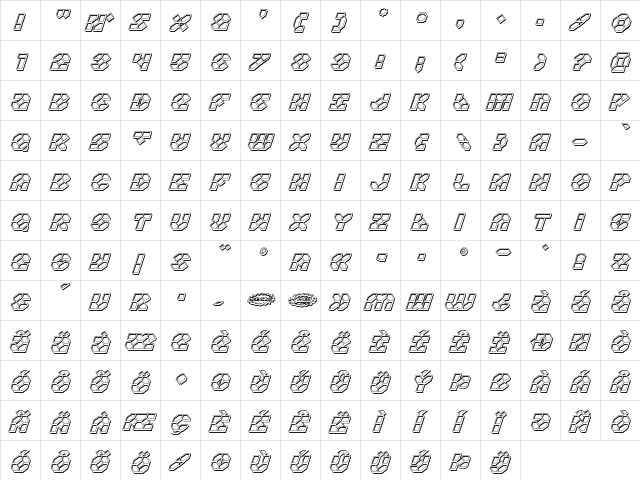
Zoom Runner Engraved Italic Italic
Design Context for Zoom Runner Engraved Italic Typeface
Zoom Runner Engraved Italic is built around its visual character rather than neutral utility — its distinctive forms are designed to make an impression at display sizes. The slanted form adds forward momentum and visual energy.
Font Pairing: Pair with a clean neutral sans-serif for body copy to let Zoom Runner Engraved Italic's character lead without overwhelming the composition.
Pro Tip: Use Zoom Runner Engraved Italic exclusively at display sizes — it was designed to be seen, not read at length. Let a neutral companion handle body copy.